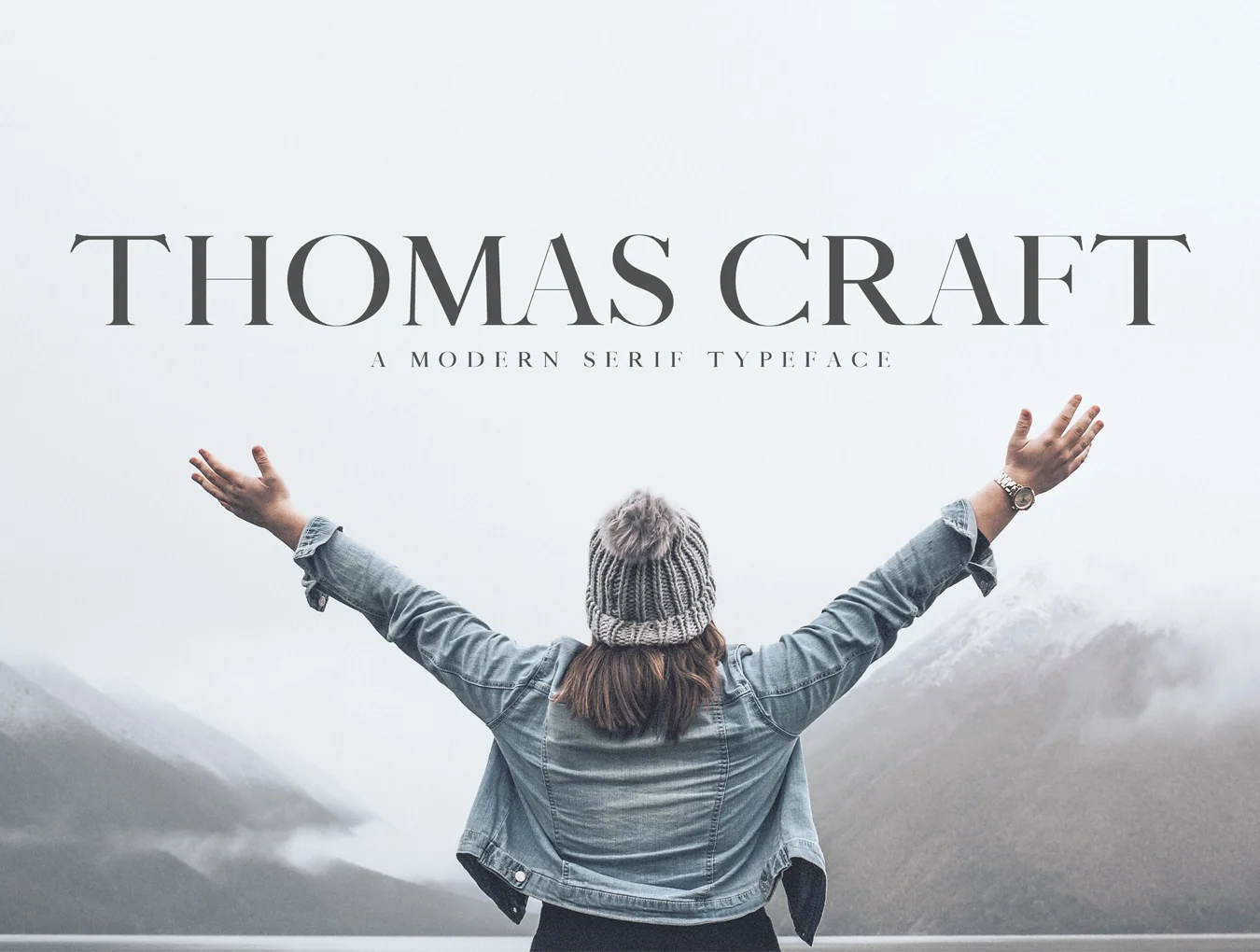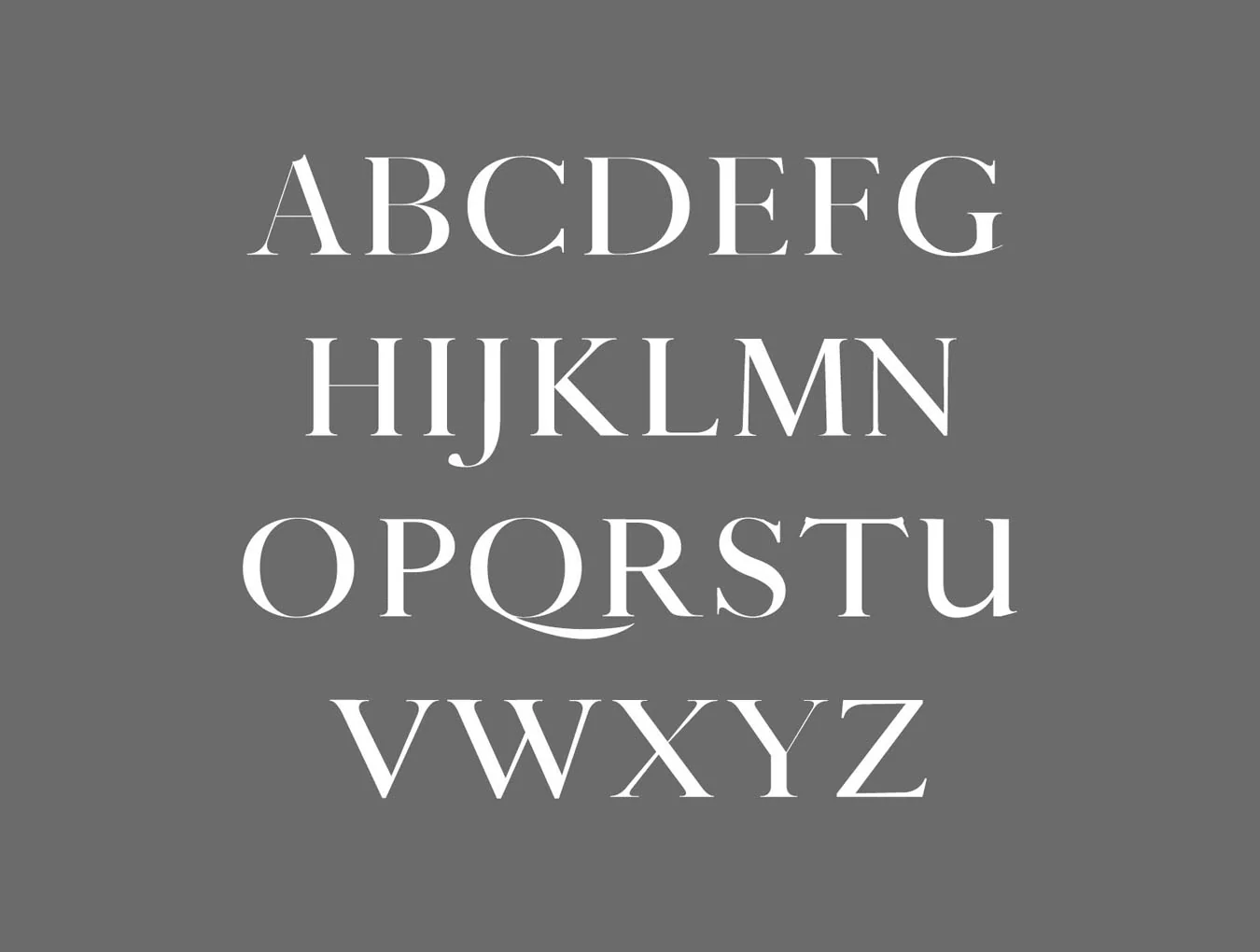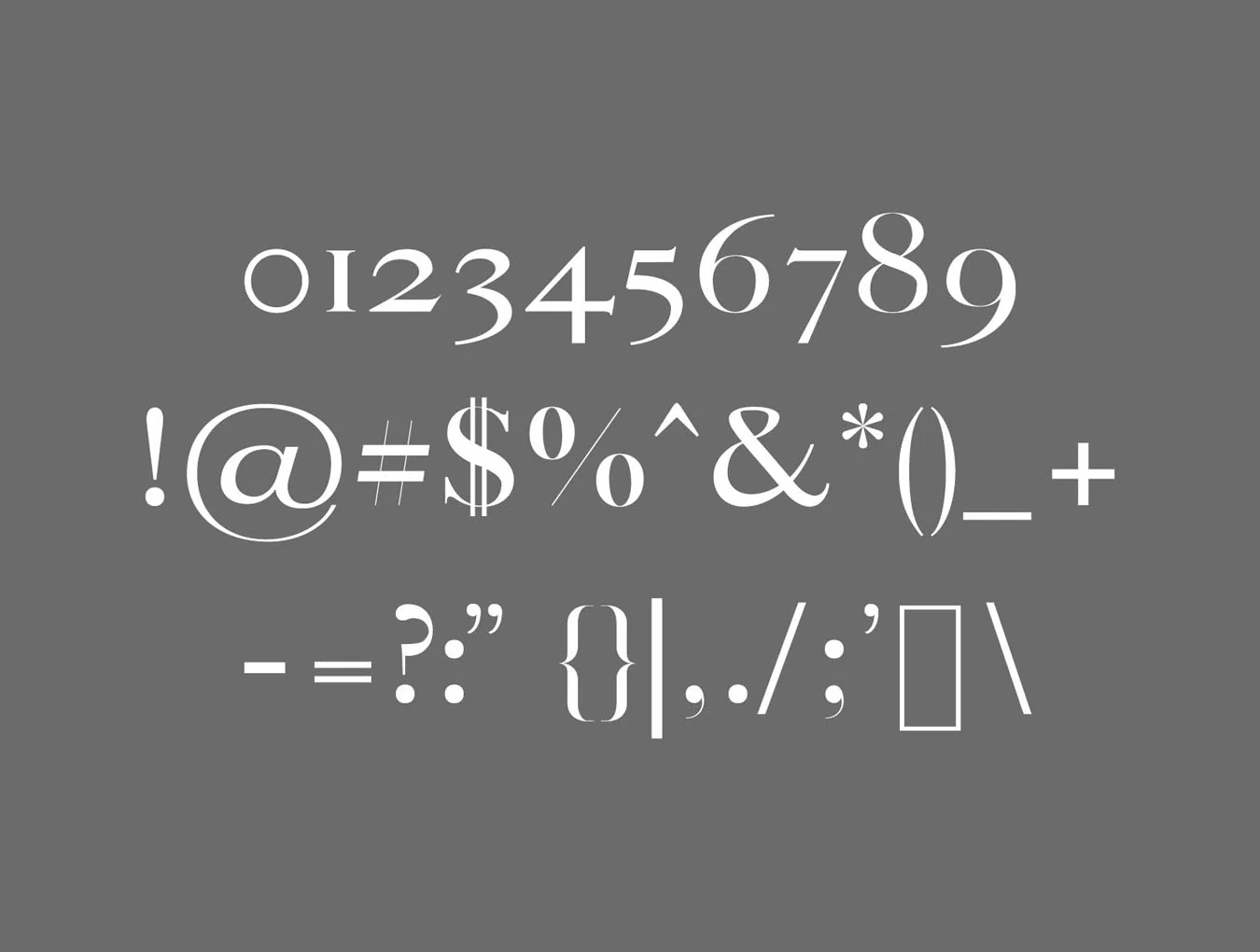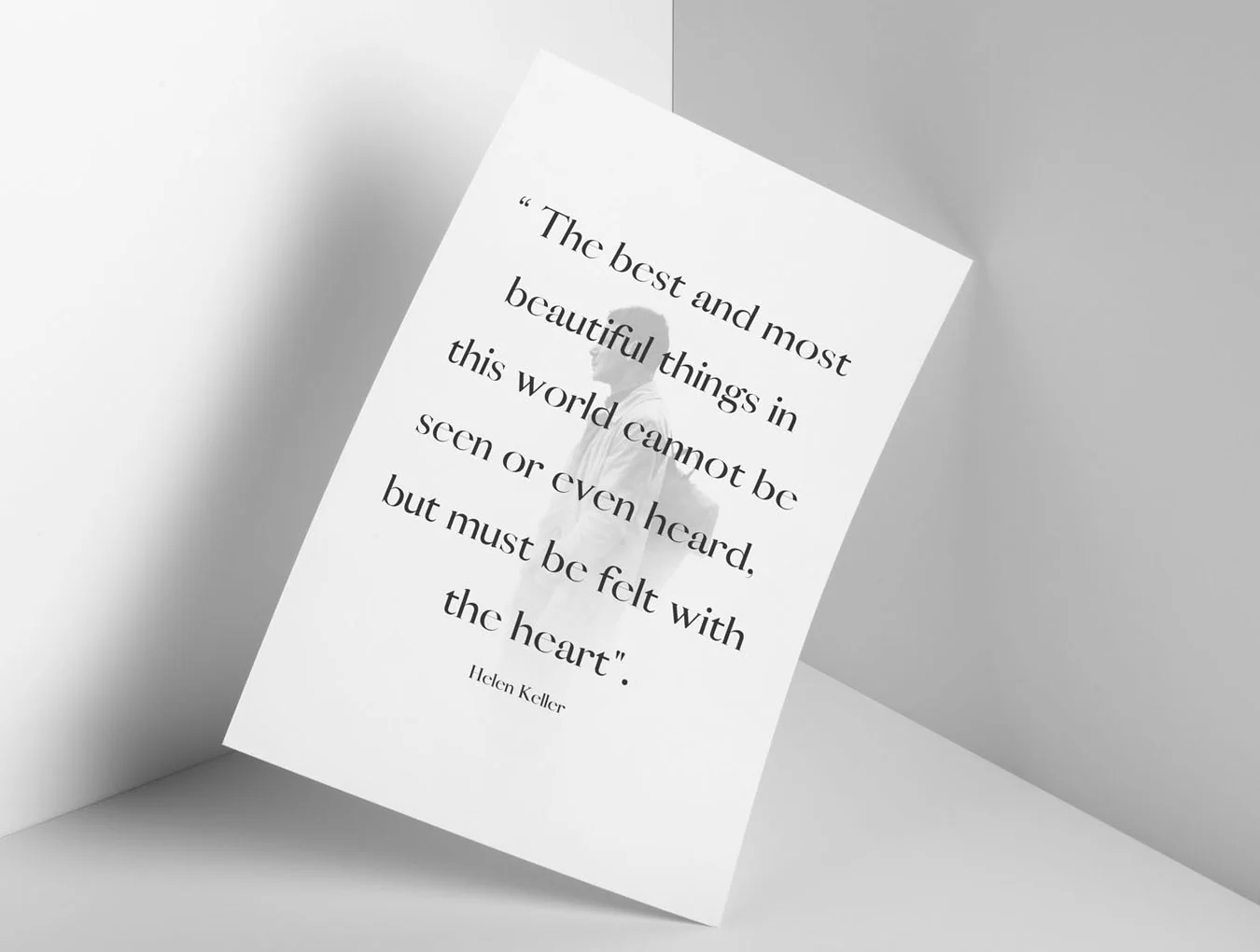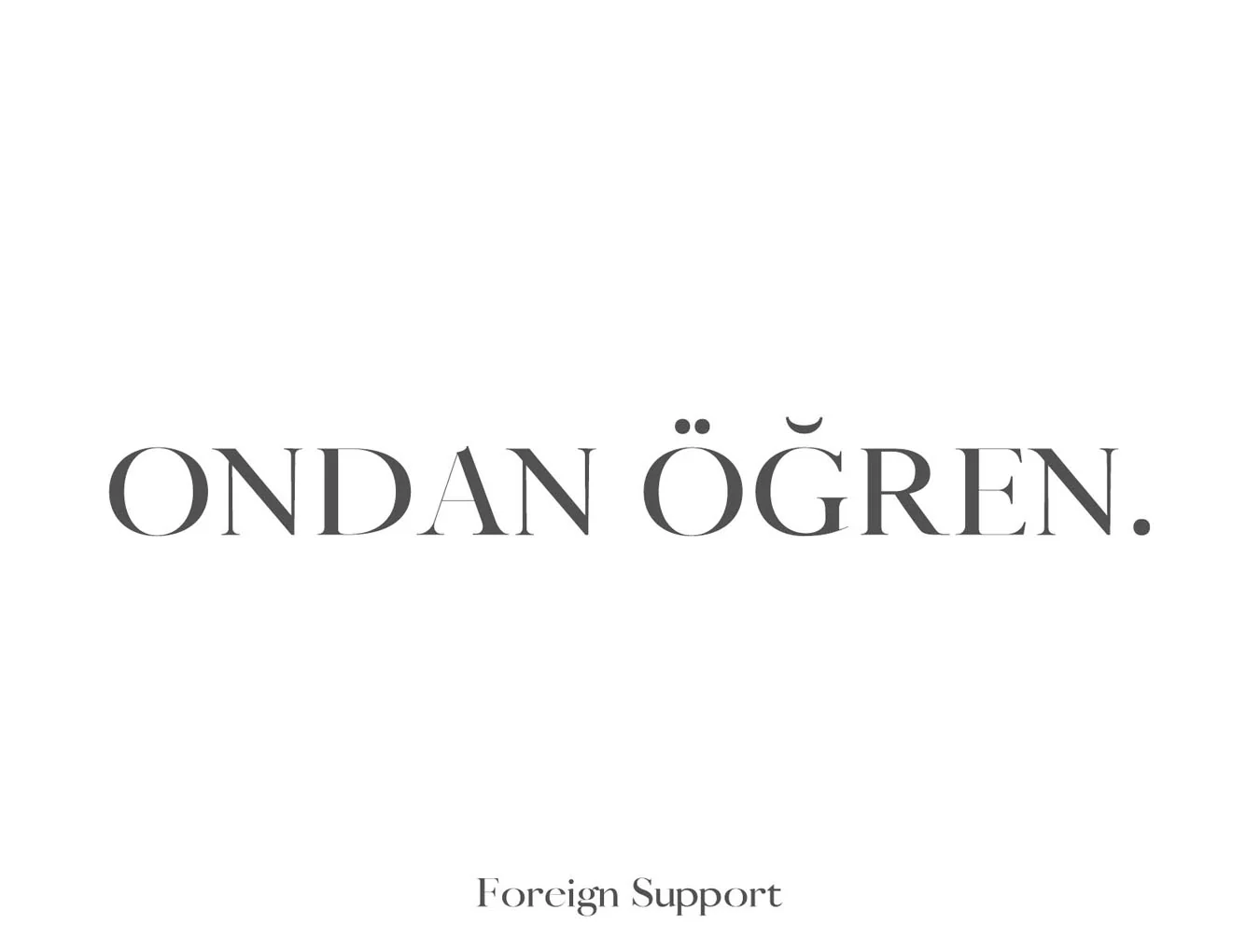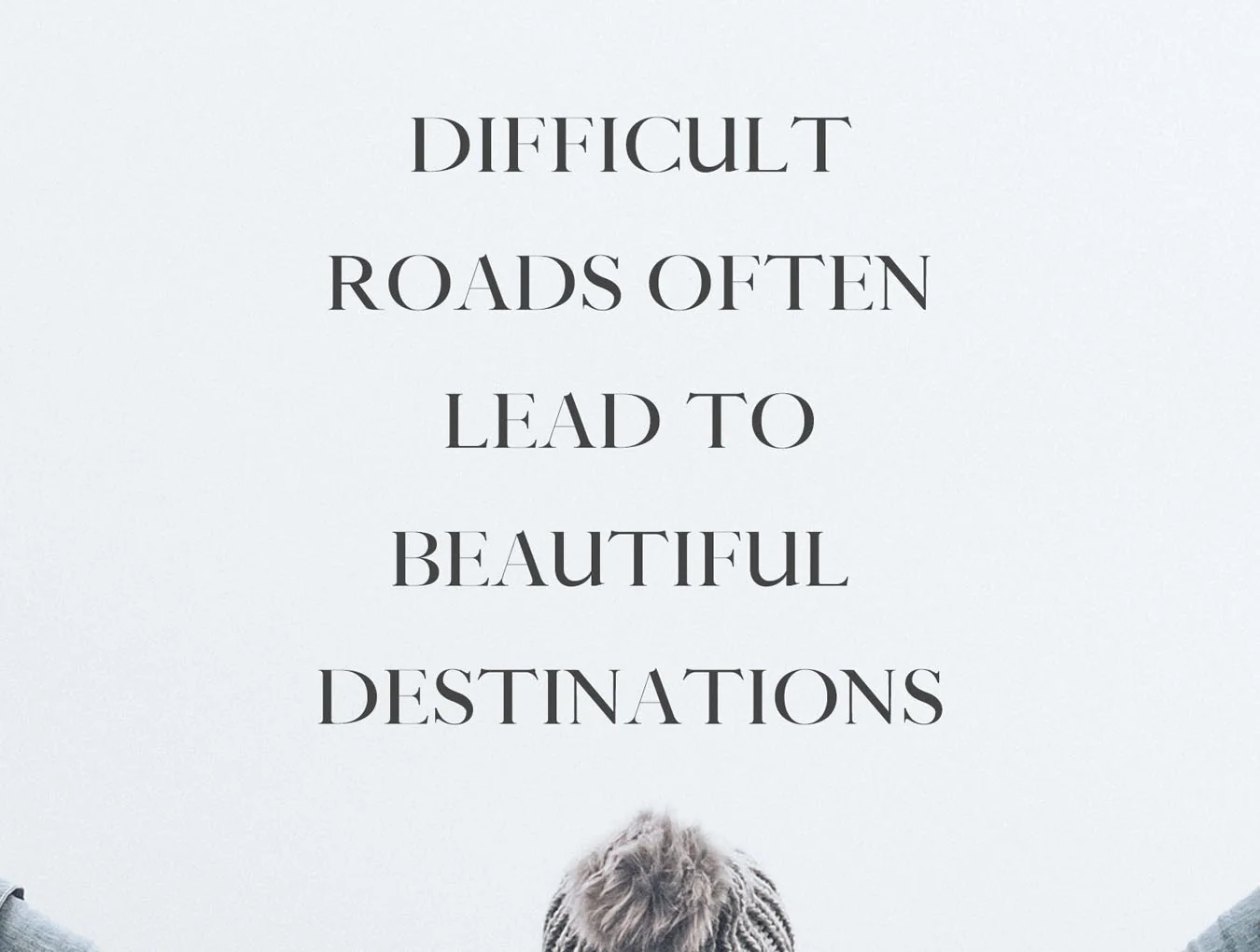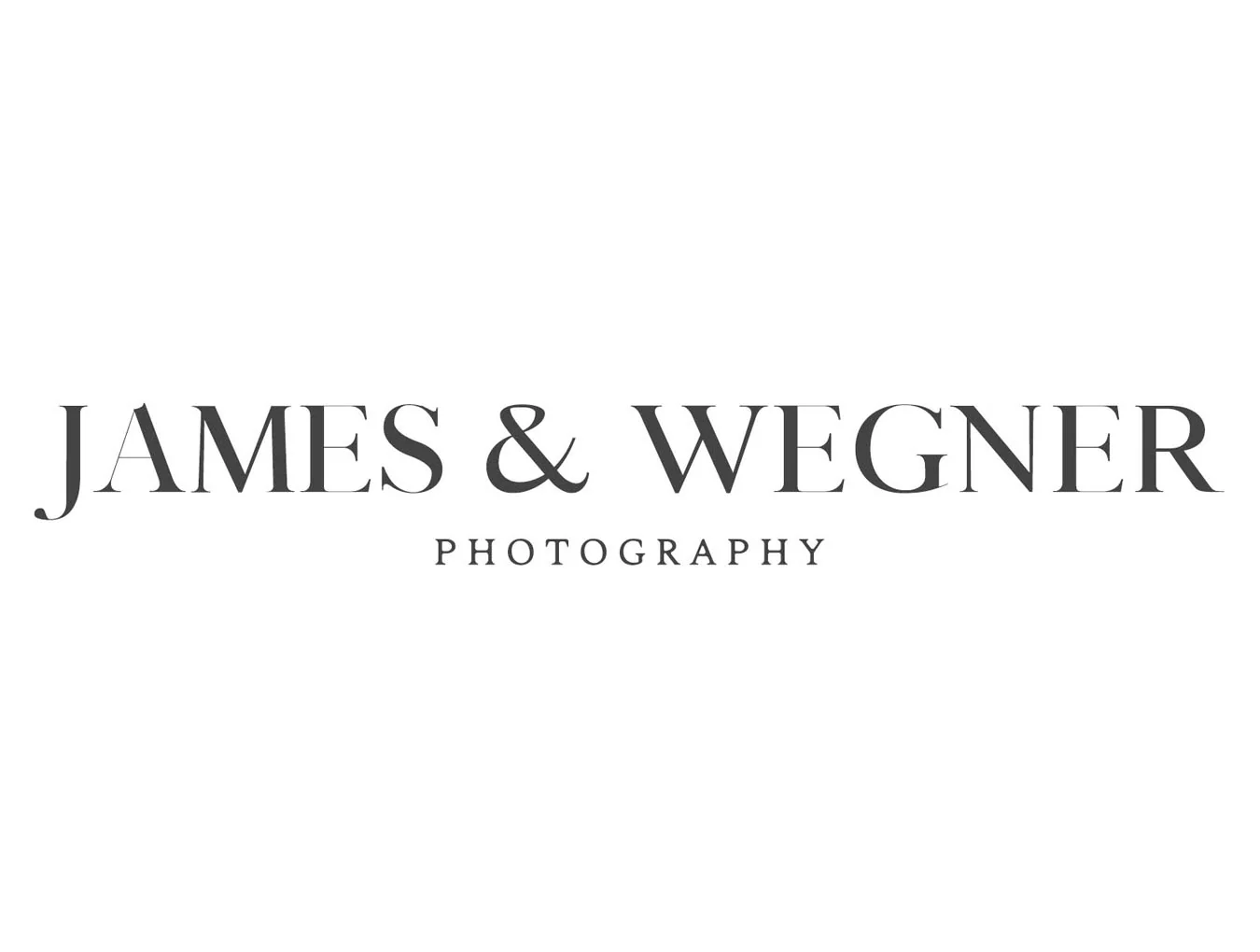
Thomas Craft Typeface
Serif typeface
Regular, Thin, Rounded and Bold styles
Uppercase and lowercase characters
Thomas Craft is an elegant contemporary serif typeface available in four weights. It features essential glyphs plus multilingual characters, making it suitable for headlines, posters, branding, logos, packaging, presentations, quotes, titles, magazine headers, web layouts, ads, invitations, books, and many creative projects.